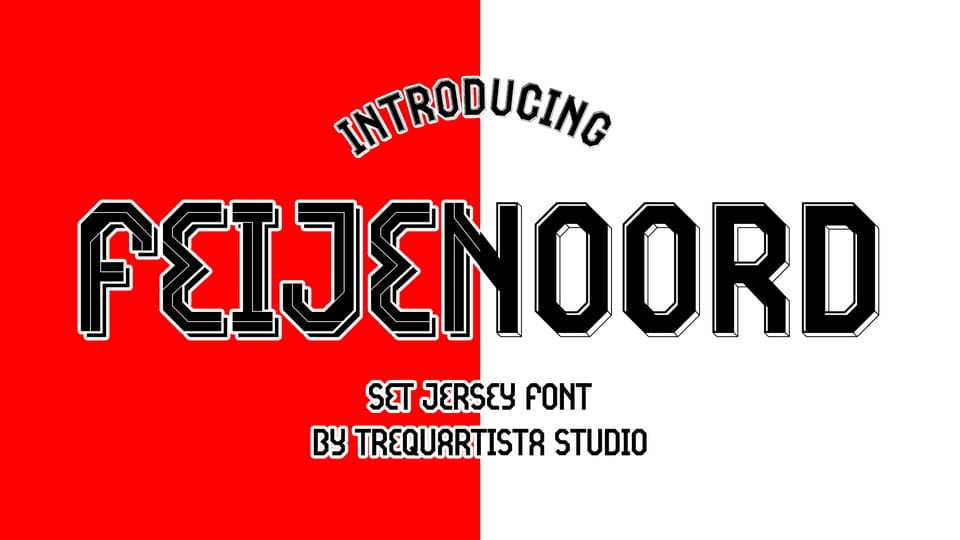
Download Feijenoord font, a bold sports display typeface designed with strength, precision, and attitude. Featuring sharp angles and solid geometric forms, this typeface delivers a powerful, modern, and masculine look.
Designer: Trequartista Studio